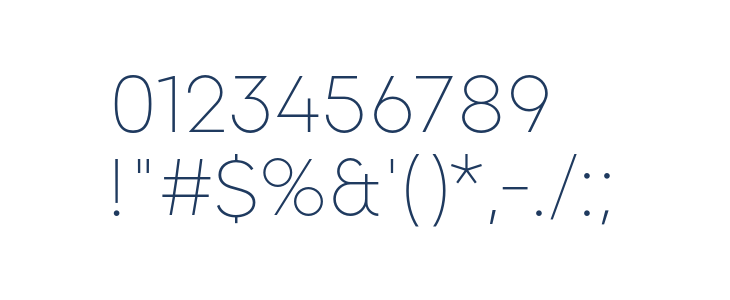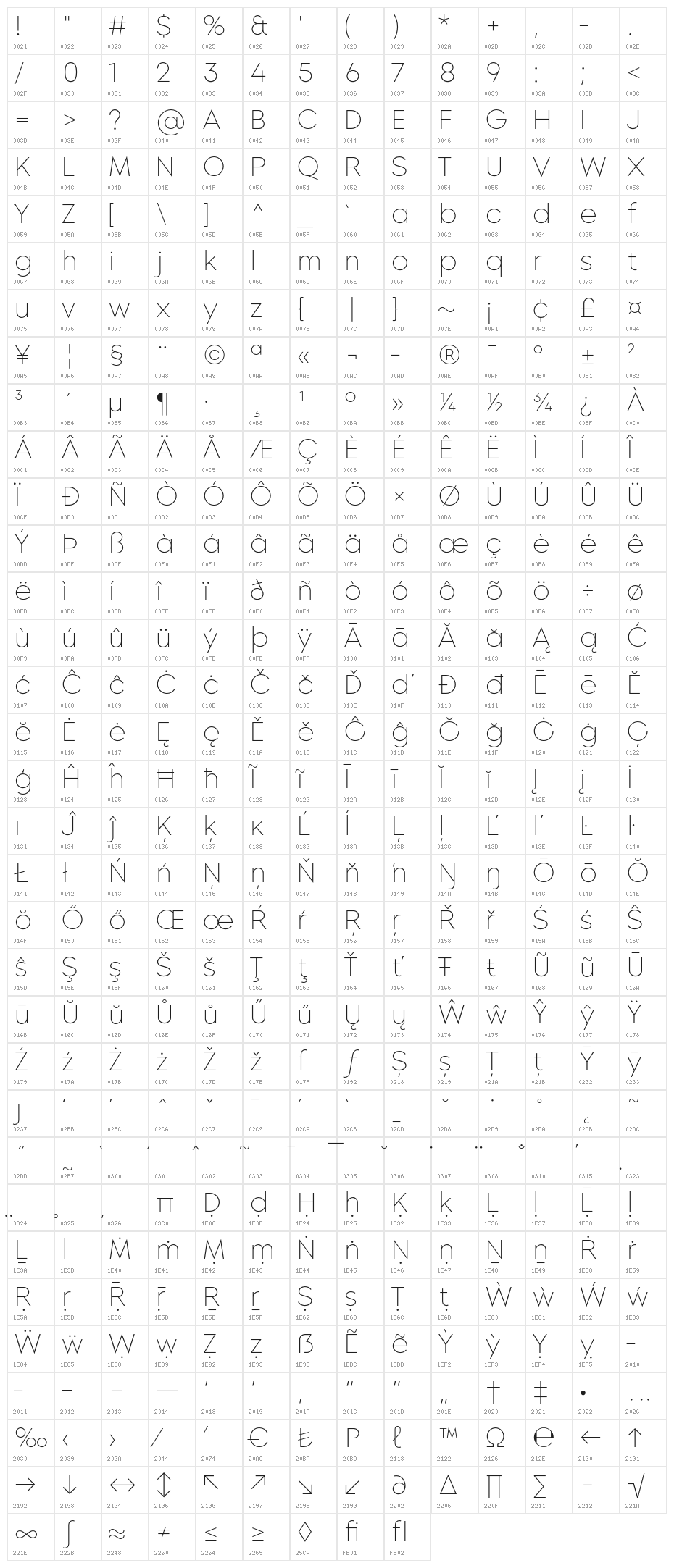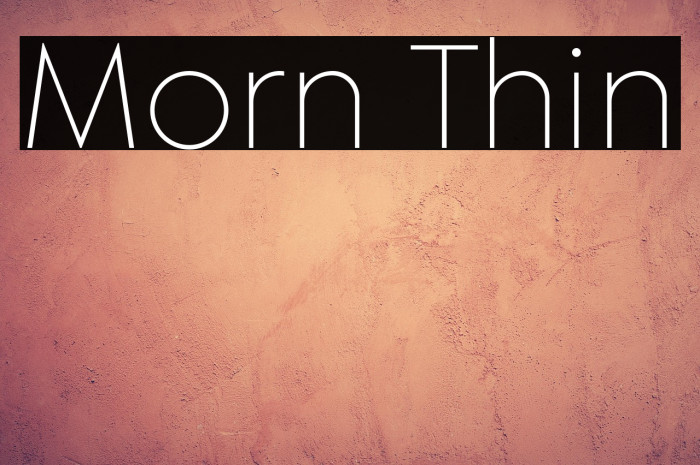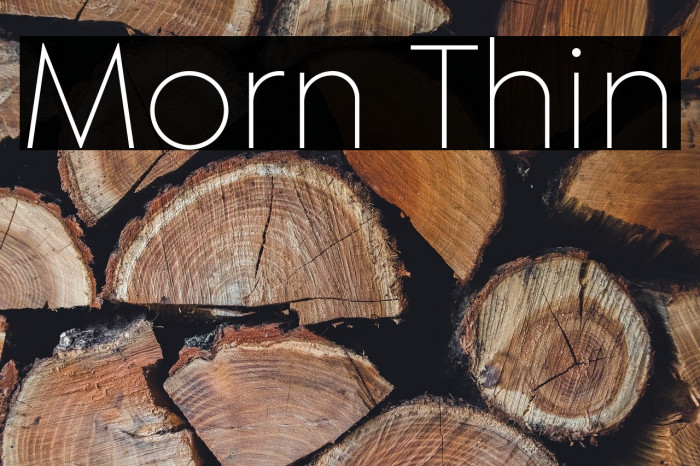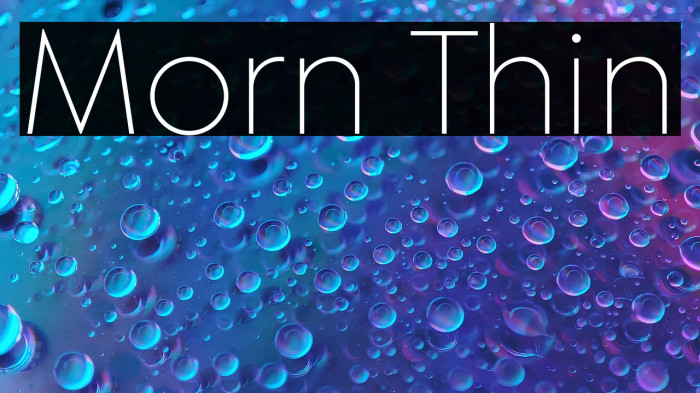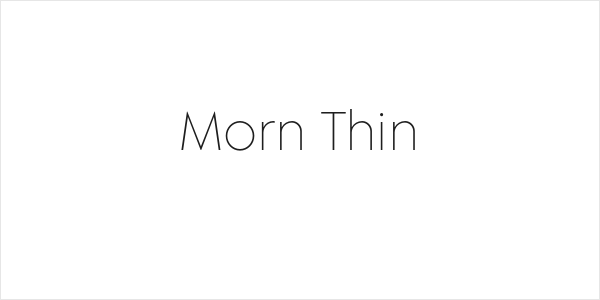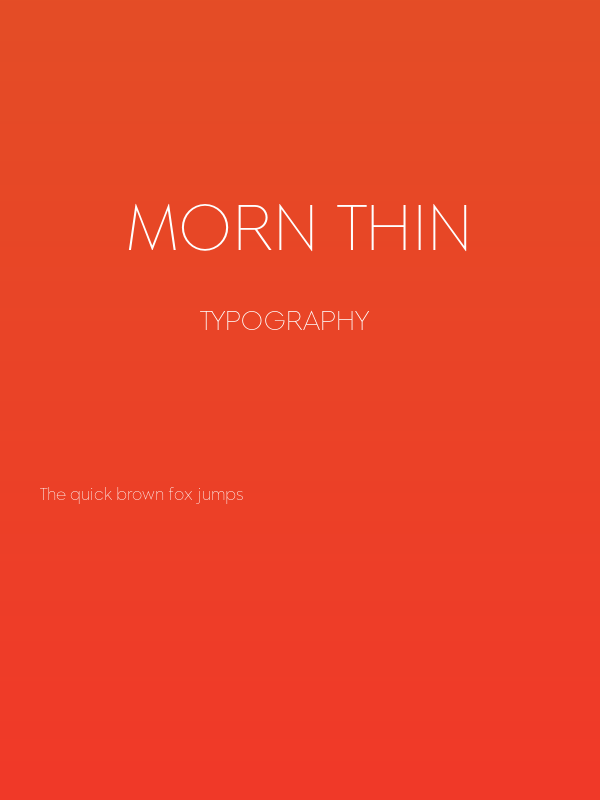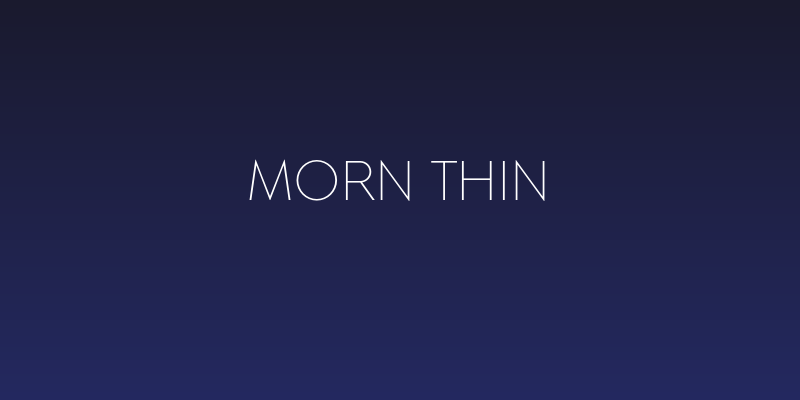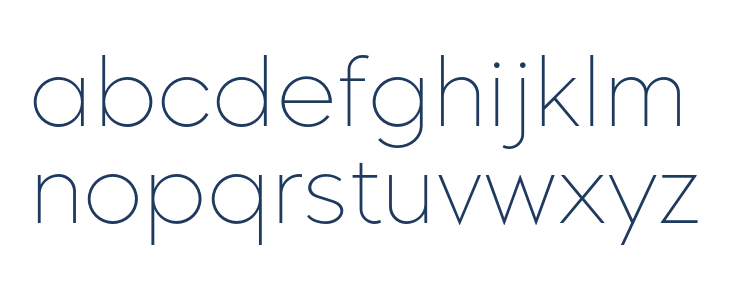
Morn Thin Font
Morn Thin Description
This font features a clean and minimalist design with thin, uniform strokes that create an elegant and modern appearance. The characters are well-proportioned, with a geometric structure that enhances readability. The uppercase and lowercase letters maintain a consistent style, offering a seamless transition between different text cases. The numerals are clear and distinct, matching the overall aesthetic of the font. Special characters are included, maintaining the same thin and precise line work. This font is ideal for projects that require a sleek and contemporary look.